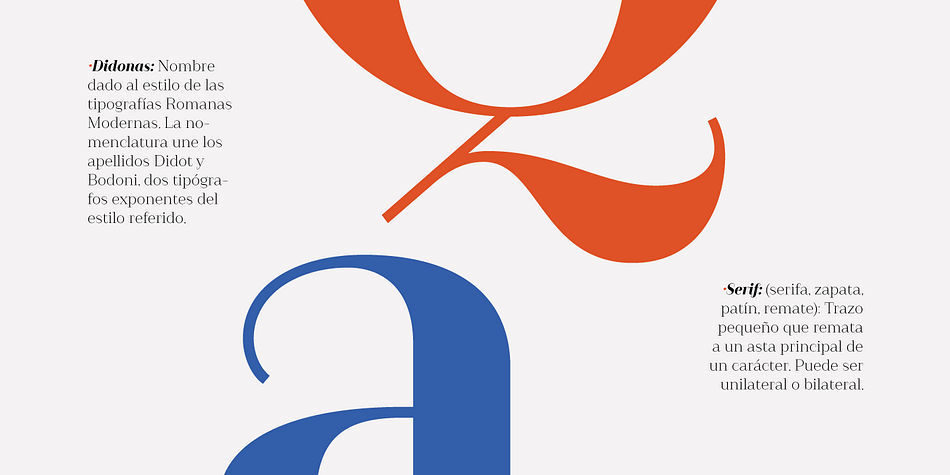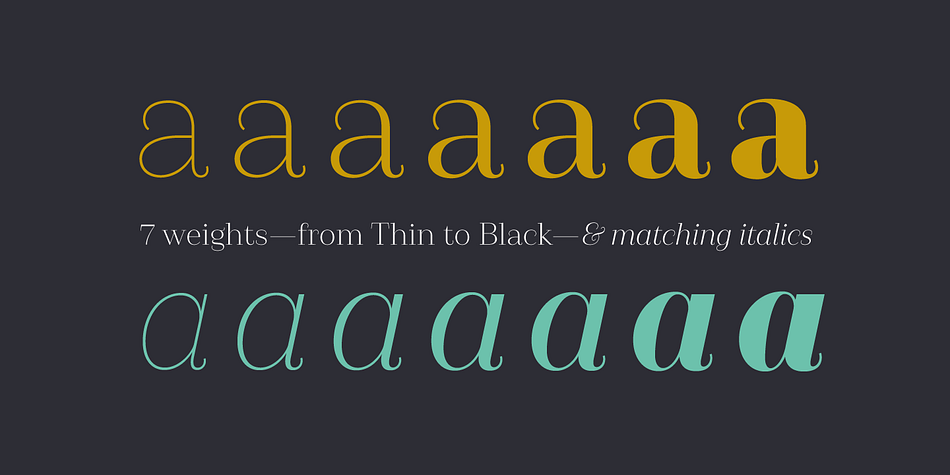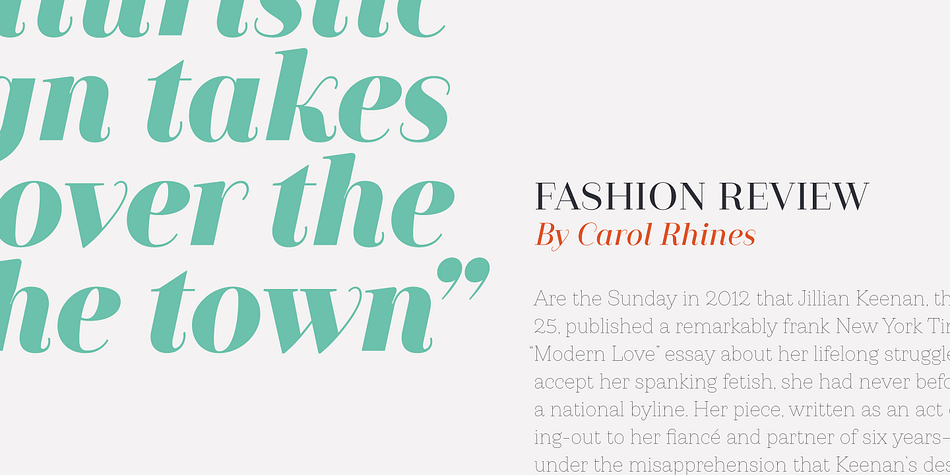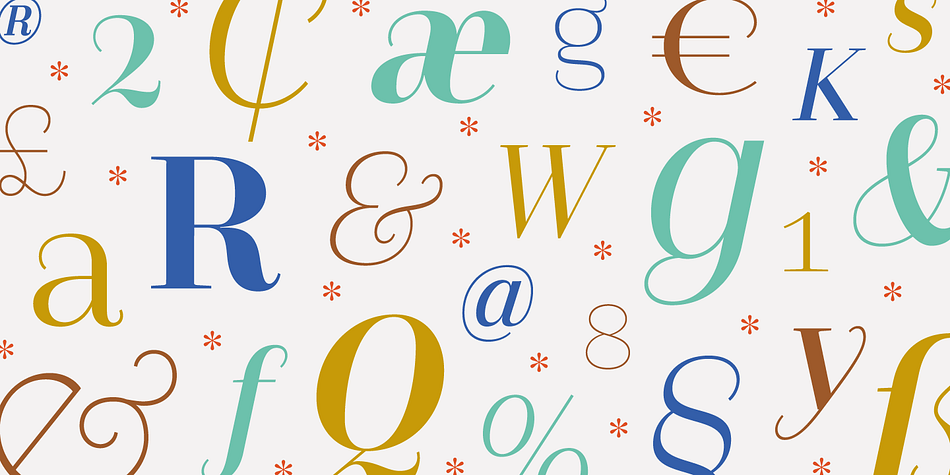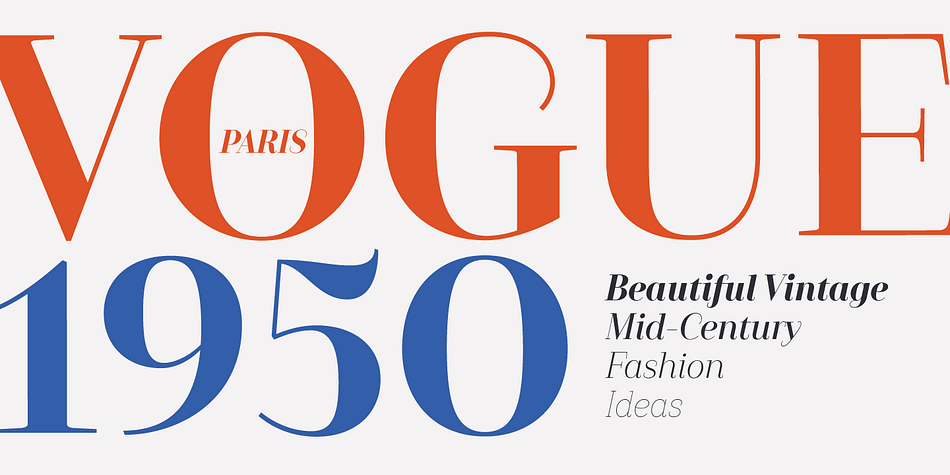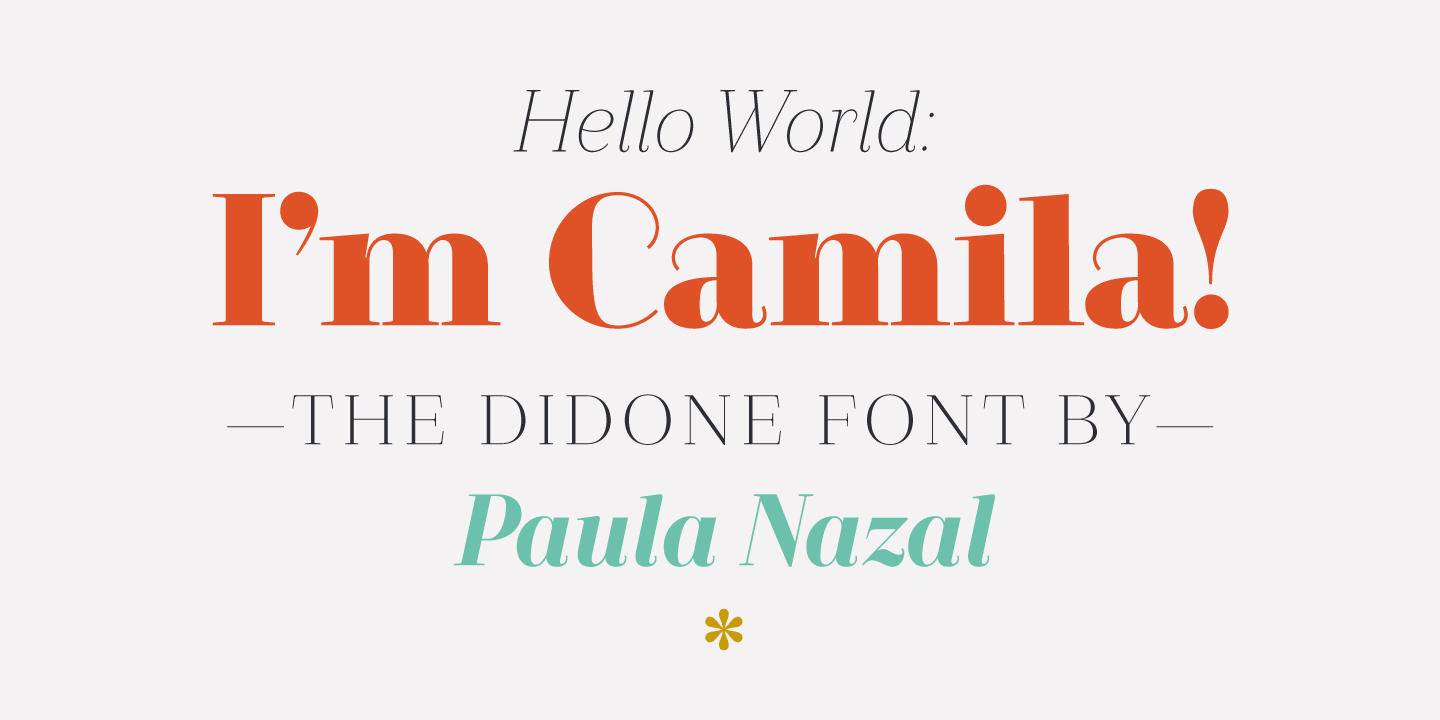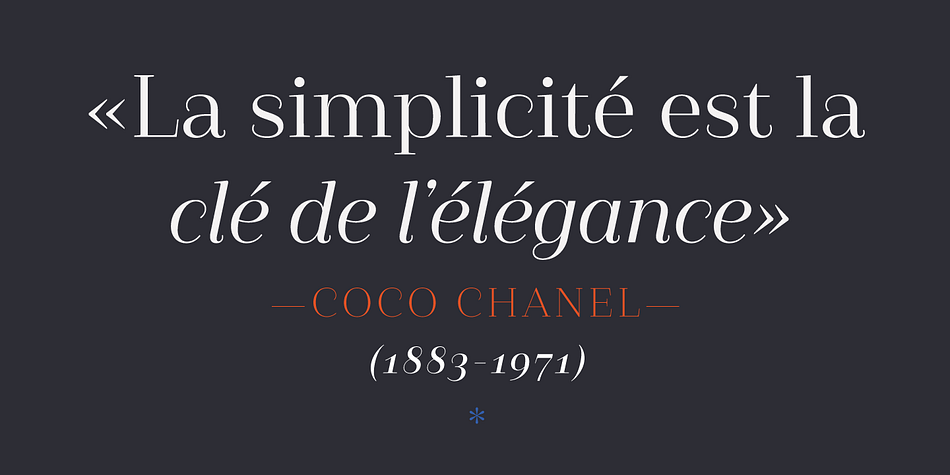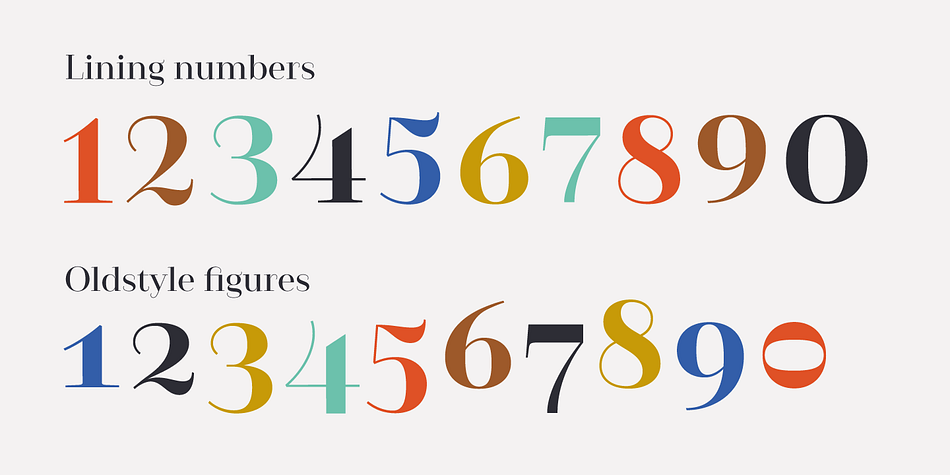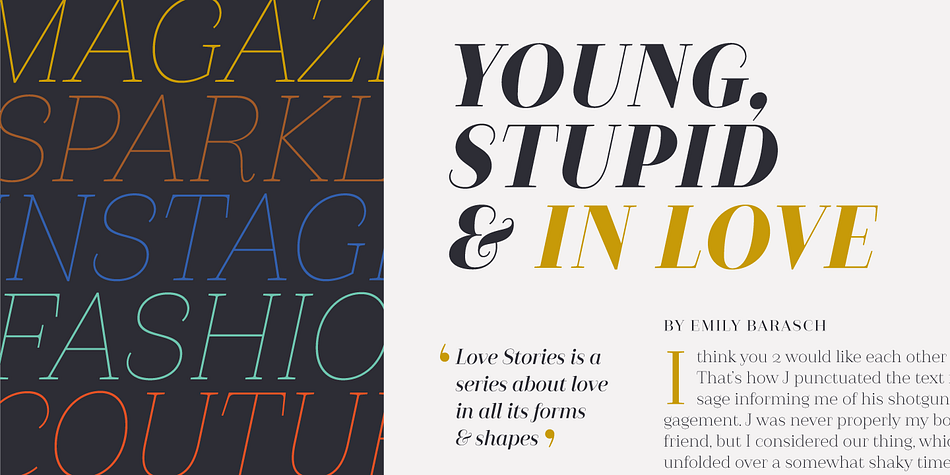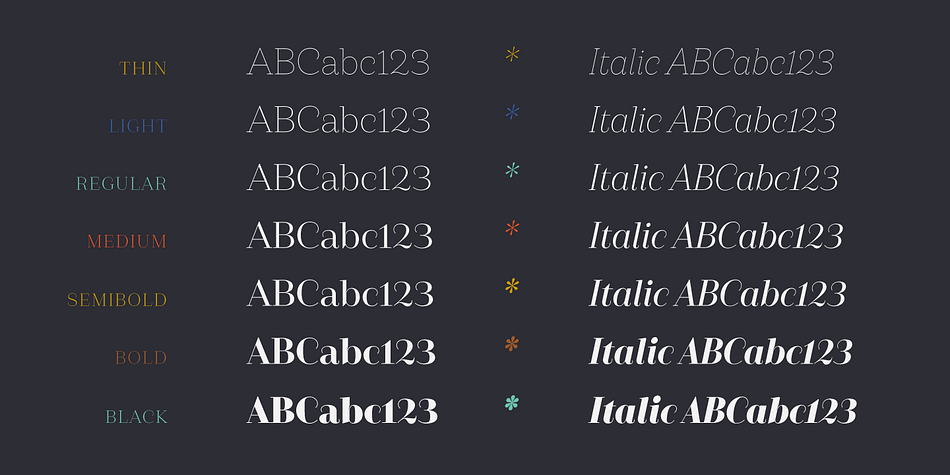
Designed by Paula Nazal Selaive, Camila is a serif font family. This typeface has fourteen styles and was published by Latinotype.
Camila is a delicate and smooth Didone typeface designed by Paula Nazal.
The family is inspired by concepts such as elegance, simplicity, femininity, and primarily based on Coco Chanel.
A remarkable feature of this font is that it lacks of teardrop terminals, characteristic of Didone typefaces.
This font of thin serifs and soft finishes also includes italics, strengthening the concept of its design. A great variety of shapes makes Camila an ideal font for both display and small sizes.
Camila is the perfect choice for branding and publishing projects. This font family comes in 7 weights, ranging from Thin to Black, each with matching italics and includes a set of 426 characters that support 206 different languages.